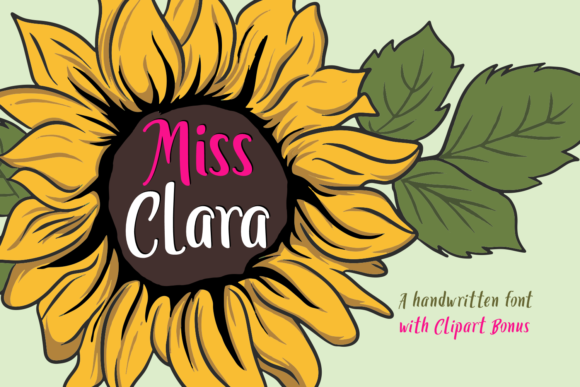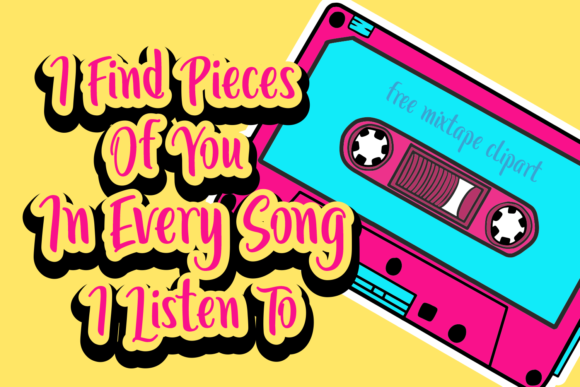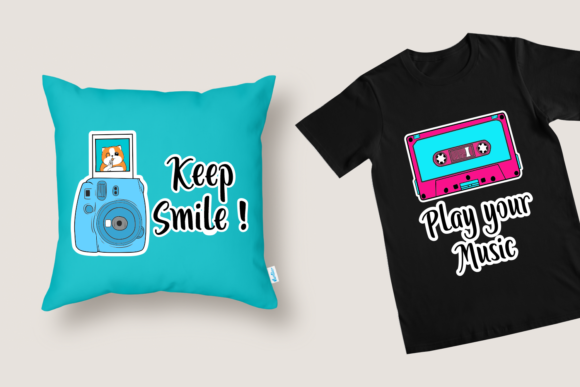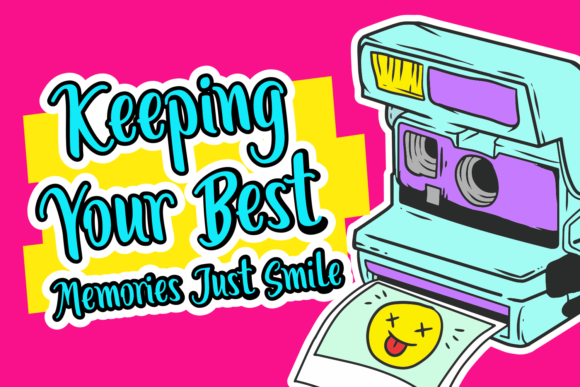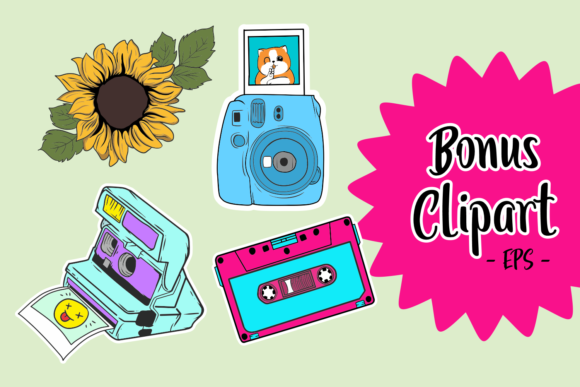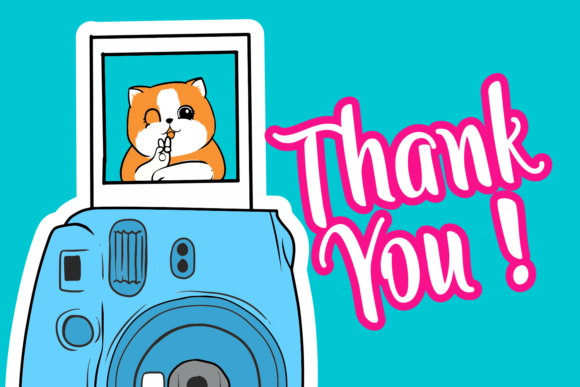
HomeScript FontsMiss Clara Font Script Fonts Miss Clara Font FacebookXPinterestWhatsApp Miss Clara Font Poster 2 Miss Clara Font Poster 3 Miss Clara Font Poster 4 Miss Clara Font Poster 5 Miss Clara Font Poster 6 About Miss Clara Font The Miss Clara font is a cute handwritten font. It’s smooth and rounded, giving it a soft exterior. DOWNLOAD ON CREATIVE FABRICAThis font is sold and delivered by Creative Fabrica. Font Canyon may earn a commission if you buy through this link. People also explored Bankports Signature Font Femme Fatale Font Rindhus Font Guyad Font Thatsfeed Font Mostech Font Wild Smilled Font Blacklist Font Canggu Font 358 0 TagsMiss Clara Font Previous articleRoxy Foxy FontNext articleHalloween Story Font LEAVE A REPLY Cancel reply Comment: Please enter your comment! Name:* Please enter your name here Email:* You have entered an incorrect email address! Please enter your email address here Website: Save my name, email, and website in this browser for the next time I comment. Personal Use Free Equestrain Personal Use Free Read more about this font Lixdu Personal Use Free Read more about this font City Tour Personal Use Free Read more about this font Hommy You Personal Use Free Read more about this font BLOG Free Fonts Risk: Why Free Fonts Can Be Dangerous for Designers Free Fonts Risk: Why Free Fonts Can Be Dangerous for Designers Using free fonts is a common practice in web and graphic design. However, the... How to Cut Any Font on Cricut: Convert a Font to SVG (Free) Transform Your Website: Elevate Your Typography with 7 Best Web Font Generators 5 Fonts That Will Dominate Design Trends in 2026